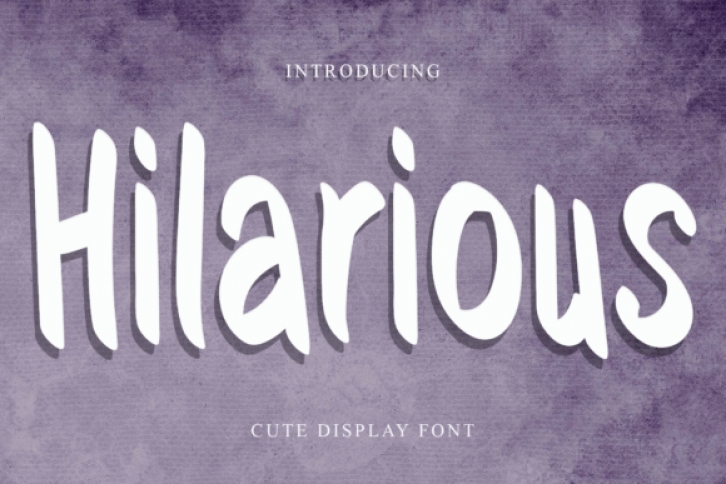
Hilarious is an authentic and relaxed brushed display font. It has a daring style and features thick letters. Add it confidently to your projects, and you will love the results.